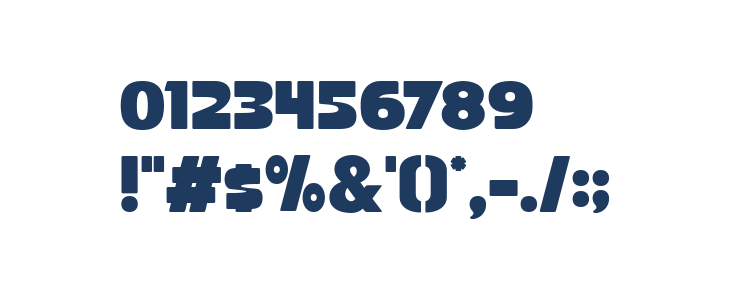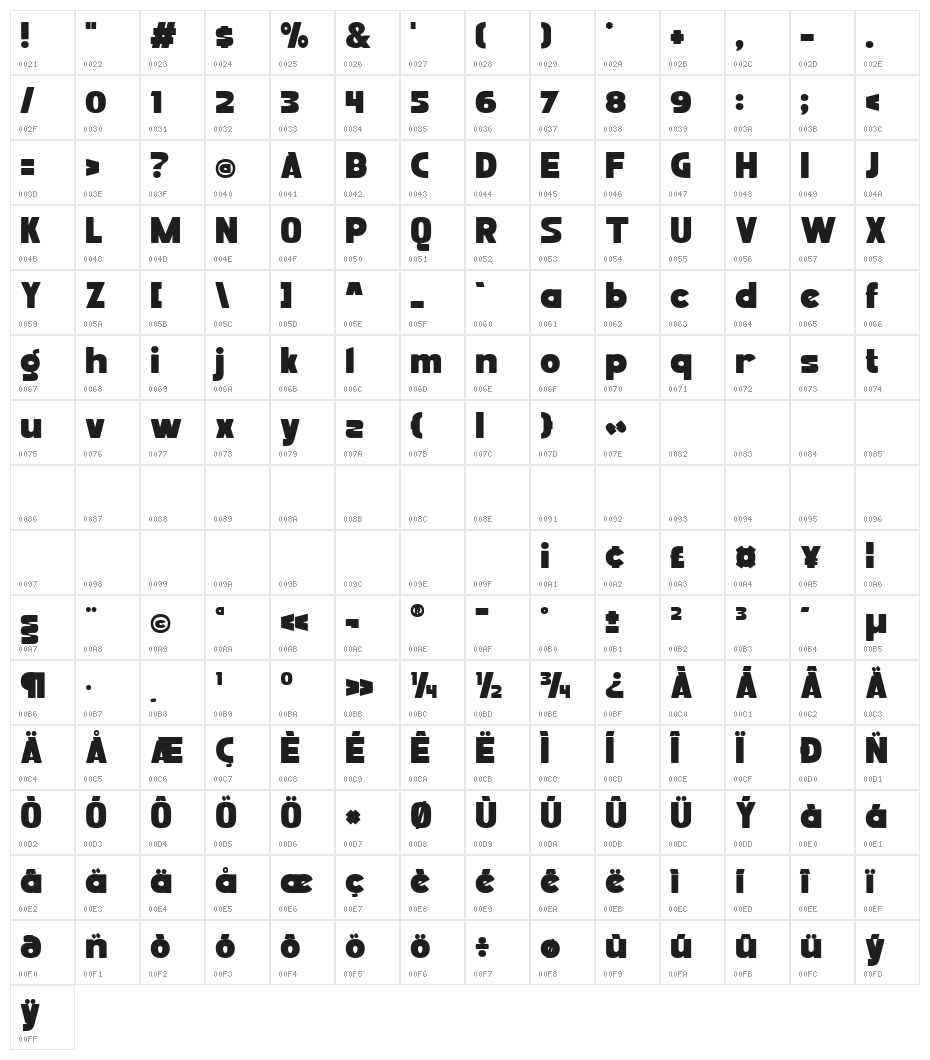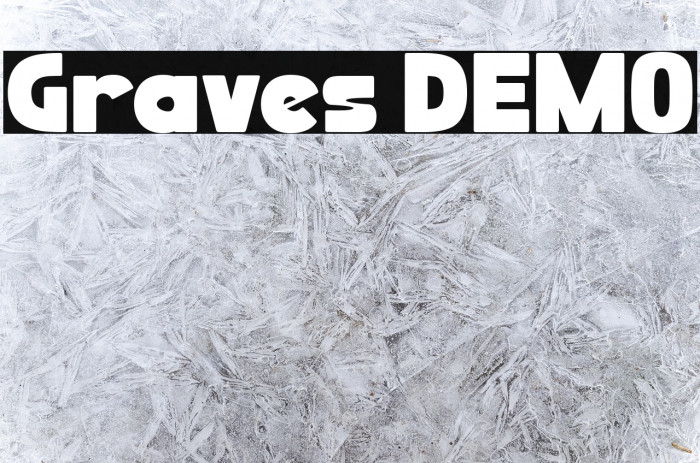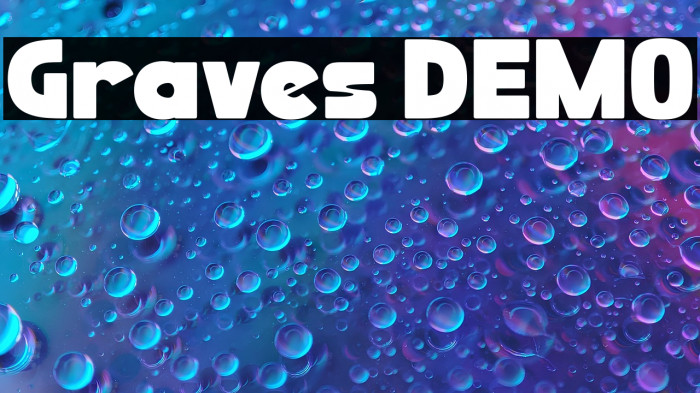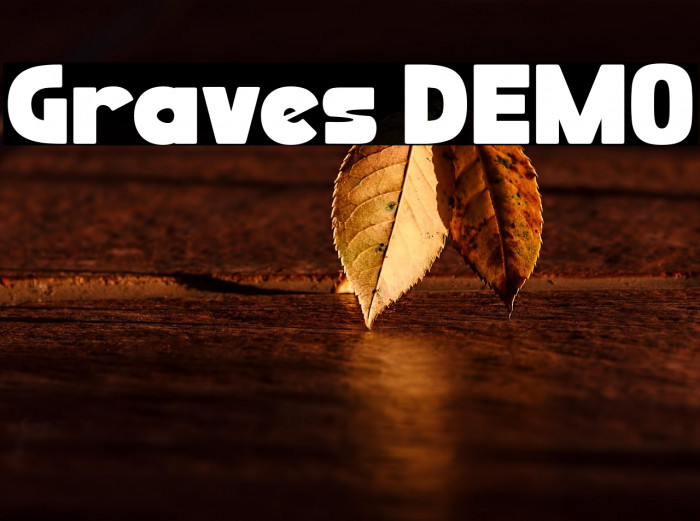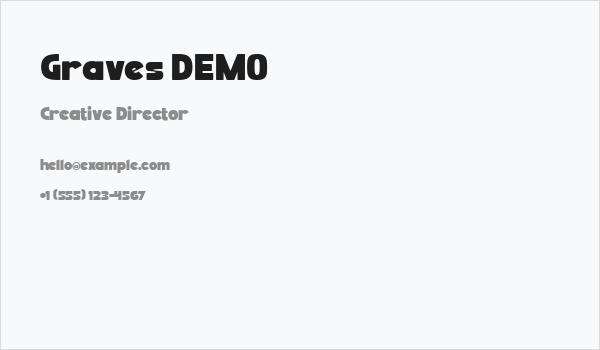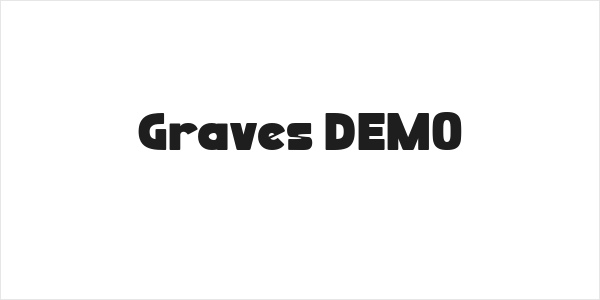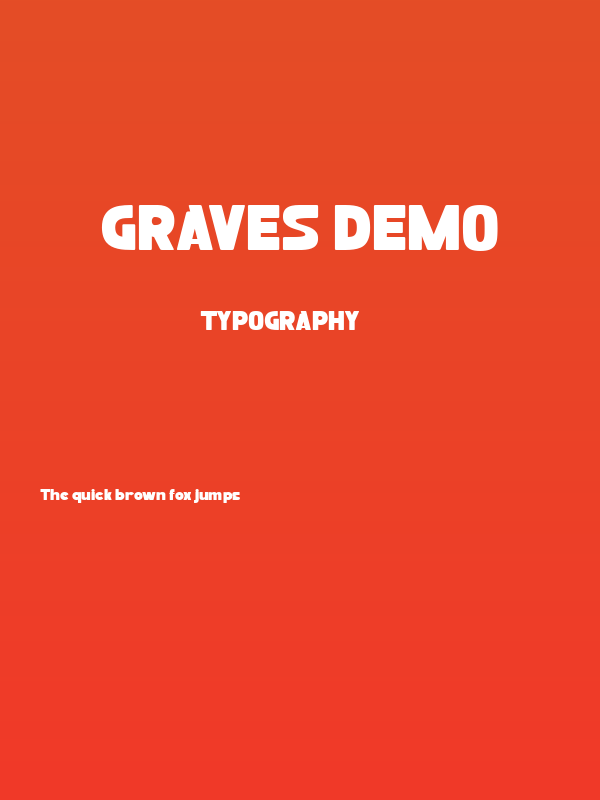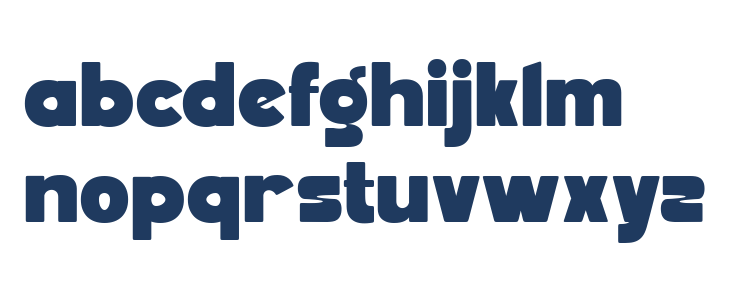
Graves DEMO Font
Graves DEMO Description
This bold and impactful font features thick, blocky characters with a strong presence. The uppercase letters are uniform in height, creating a cohesive and powerful look. The lowercase letters maintain the same boldness, with rounded edges that add a touch of softness to the overall design. The numerals are equally robust, ensuring they stand out in any context. Special characters are designed with the same weight and style, providing consistency across all elements. This font's heavy strokes and solid forms make it ideal for attention-grabbing headlines and statements.